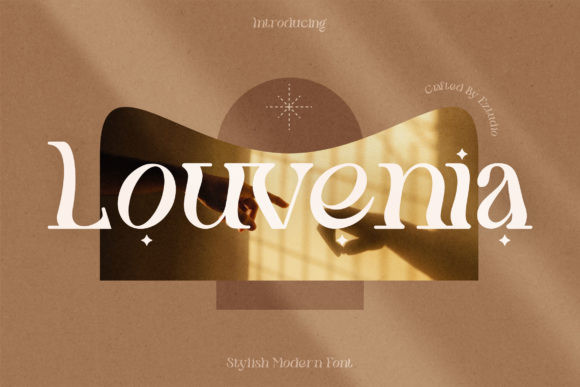
Louvenia Font
Louvenia is a stylish and wavy serif font. It looks beautiful on a variety of designs requiring a personalized style, such as wedding invitations, thank you cards, weddings, greeting cards, logos and so on.